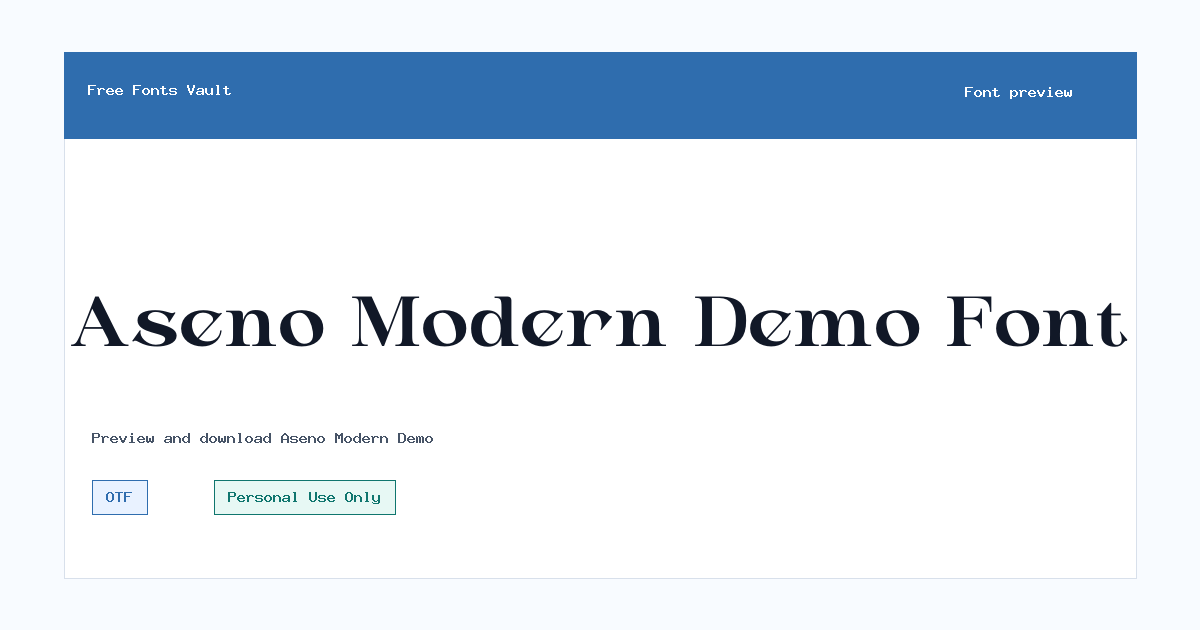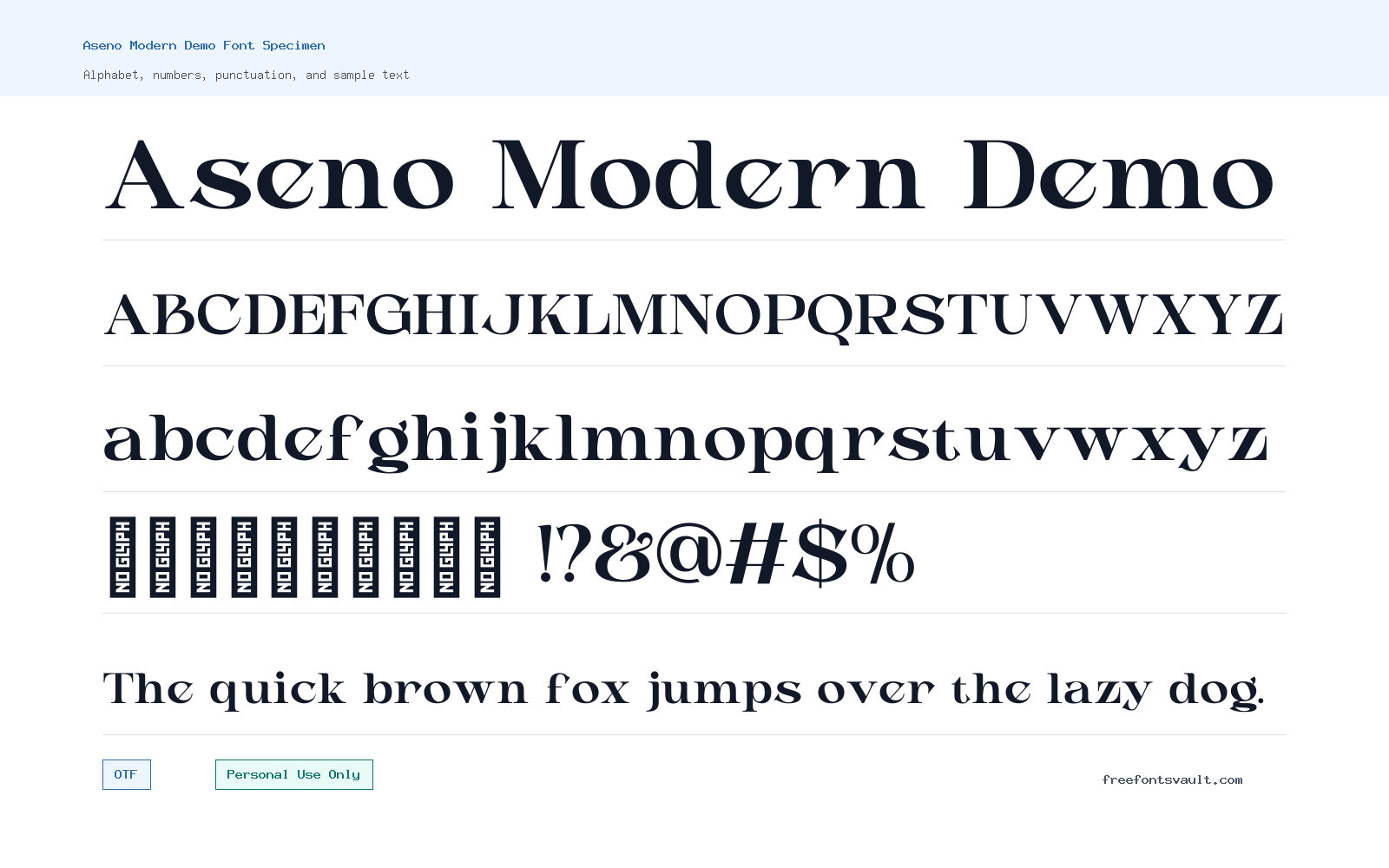
Aseno Modern Demo
Aseno Modern Demo Font
• Designer Sigit Dwipa Raharjo
• Foundry Nirmana Visual
Aseno Modern Demo is a regular-weight serif display font with a polished, high-contrast look. It works best when the words are meant to be noticed: logos, cover lines, posters, packaging concepts, and stylish web or social graphics.
About Aseno Modern Demo Font
Aseno Modern Demo has the feel of a modern display serif rather than a long-reading text face. In the preview, the letters show strong contrast between thick and thin strokes, sharp bracketed serifs, and decorative cuts in several characters. Letters such as e, g, s, and a carry the most personality, giving short words a fashion-editorial tone without needing extra effects. The uppercase set is clean and upright, while the lowercase has more movement and flourish. That mix makes the font useful when you want a title to feel refined but still readable at a glance.
Use it for short text first: a brand name mockup, a poster headline, a magazine-style title, a quote graphic, a beauty or boutique label concept, or a hero heading in a website design. It can also work in logo exploration, especially when the name is not too long and the spacing is adjusted by hand. For web mockups, test it at larger sizes and avoid relying on it for body copy, captions, menus, or dense paragraphs. The fine details and decorative letter shapes need room to breathe, and they may lose clarity on small screens or low-resolution previews.
• Elegant serif display style with strong thick-thin contrast and sharp details
• Distinctive lowercase shapes that add character to short words and names
• Best suited to title-sized typography rather than long body text
• Logo concepts and brand-name mockups
• Poster titles and event graphics
• Fashion, beauty, boutique, editorial, or portfolio-style headings
• Packaging concepts, labels, and presentation visuals
• Website hero text, social posts, and quote graphics
Start by previewing your exact word or brand name, because decorative serif fonts can change character depending on the letters used. Increase tracking slightly for all-caps settings, but keep lowercase words tighter so the rhythm does not break. Pair it with a plain sans serif for descriptions, navigation, pricing, dates, or body text. A neutral grotesk or humanist sans can keep the layout readable while Aseno Modern Demo carries the visual focus. If you use it in a logo mockup, test it in black and white, at small sizes, and with different spacing before making a final choice.
What kind of font is Aseno Modern Demo?
It is a serif display font with high contrast, sharp details, and decorative character shapes. It is better for headings and logo-style text than for long paragraphs.
Can I use Aseno Modern Demo for a logo?
Does it work well for body text?
It is not the best choice for body text. The contrast and decorative details are more effective at larger sizes, such as titles, covers, posters, and hero headings.
What fonts pair well with Aseno Modern Demo?
Pair it with a simple sans serif for supporting text. Keep the serif font for the main title and use the sans serif for paragraphs, buttons, dates, or small labels.